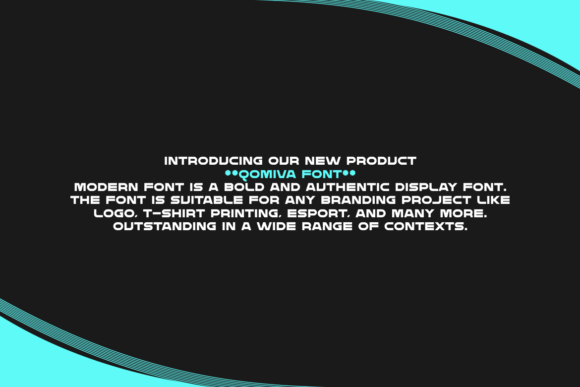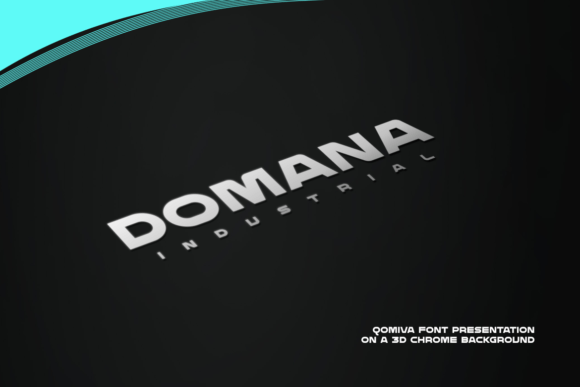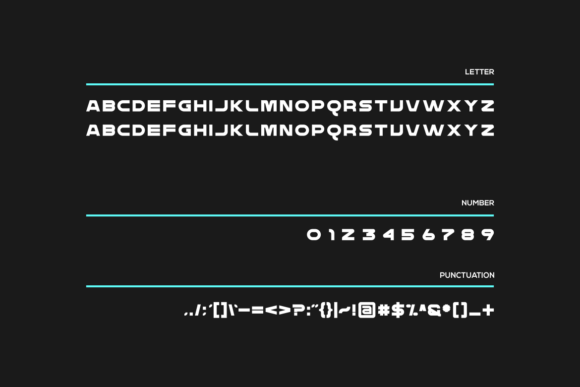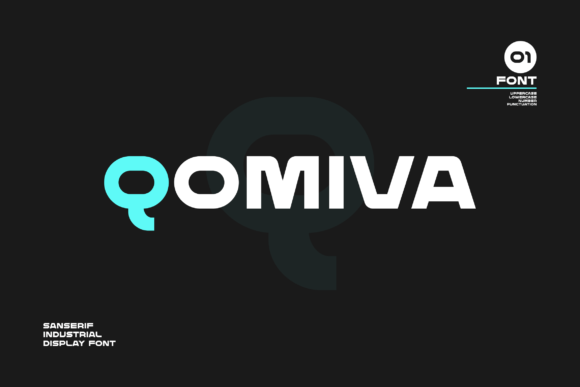
Introduction to Qomiva Font
Introducing our new product **Qomiva Font** – Modern Font is a bold and authentic display font.
The font is suitable for any branding project like logo, esports, and many more outstanding in a wide range of contexts.
Key Features of Qomiva Font
Why Choose Qomiva Font?